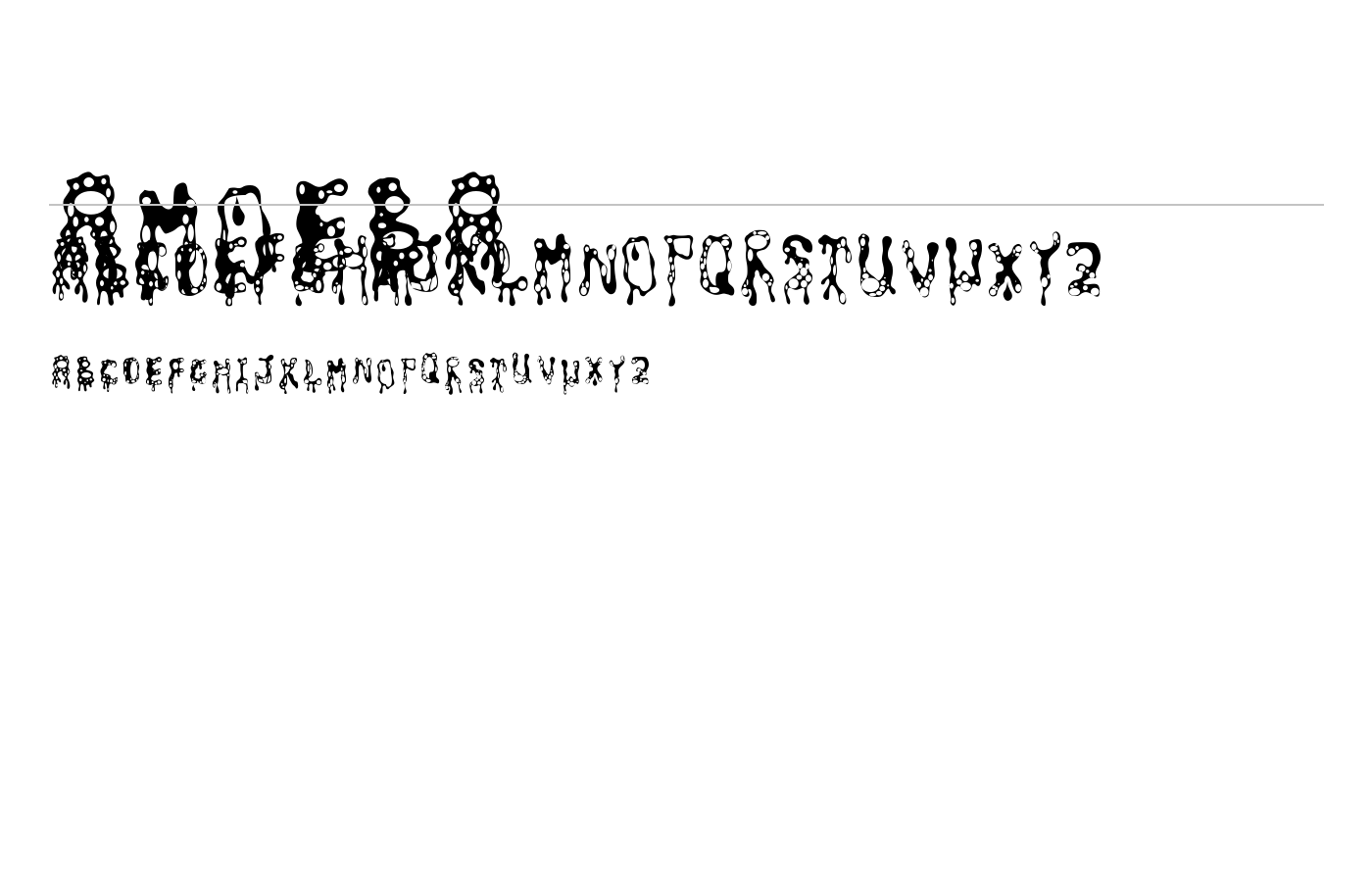
Amoeba Font is a highly decorative and playful display typeface with an organic, blob-like style that mimics dripping or melting shapes. Its dynamic, irregular forms give it a quirky and experimental personality, making it perfect for creative projects, Halloween themes, or any design seeking a fun, unconventional look. This font works best in headlines and logos where a bold, eye-catching statement is desired.